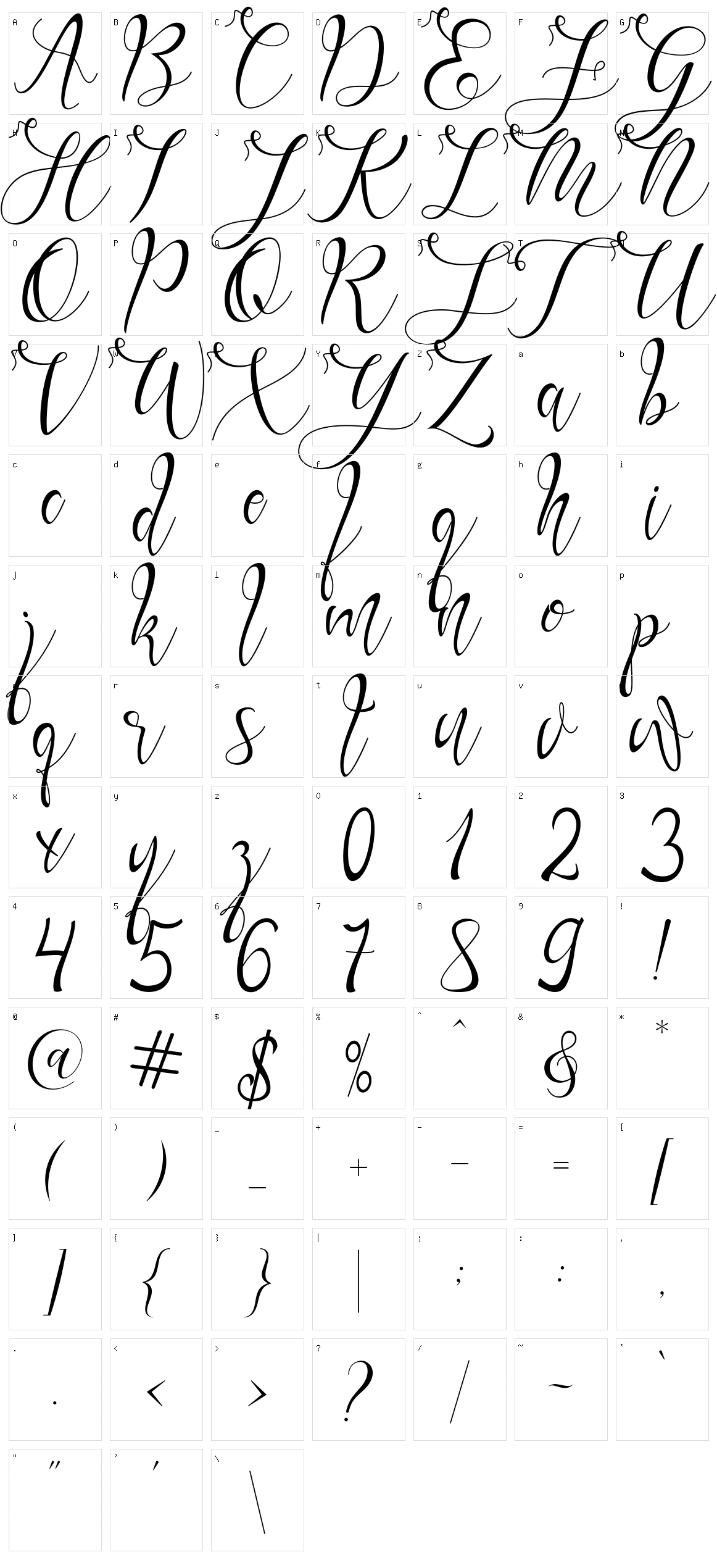
The free font Gresthine is carefully designed by Chairul Art, showcasing a thoughtful balance of creativity and usability and falls under the Script font style. When you download the ZIP file, it contains only 156.36 KB of font files, making it lightweight and quick to download. Please review the license details below to understand permitted usage and distribution rights. If license information is not available, we recommend using this font for personal projects only or contacting the author directly for commercial usage permissions.